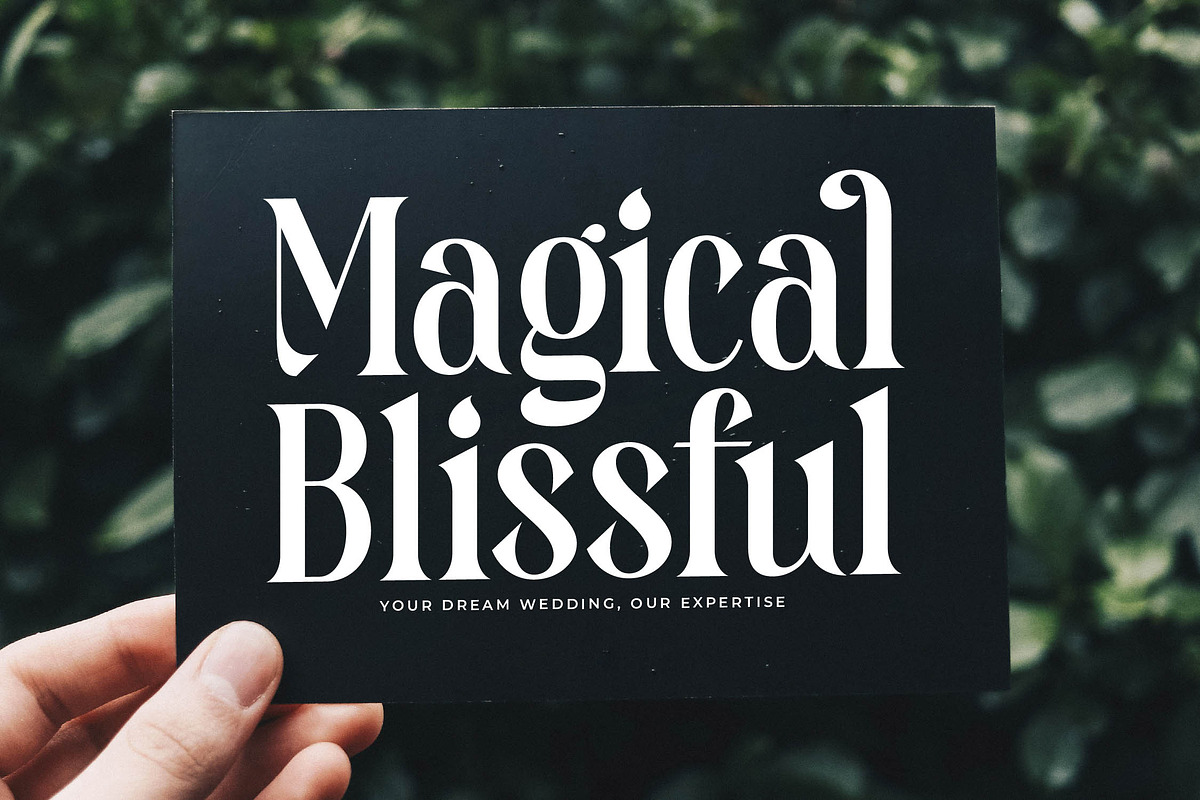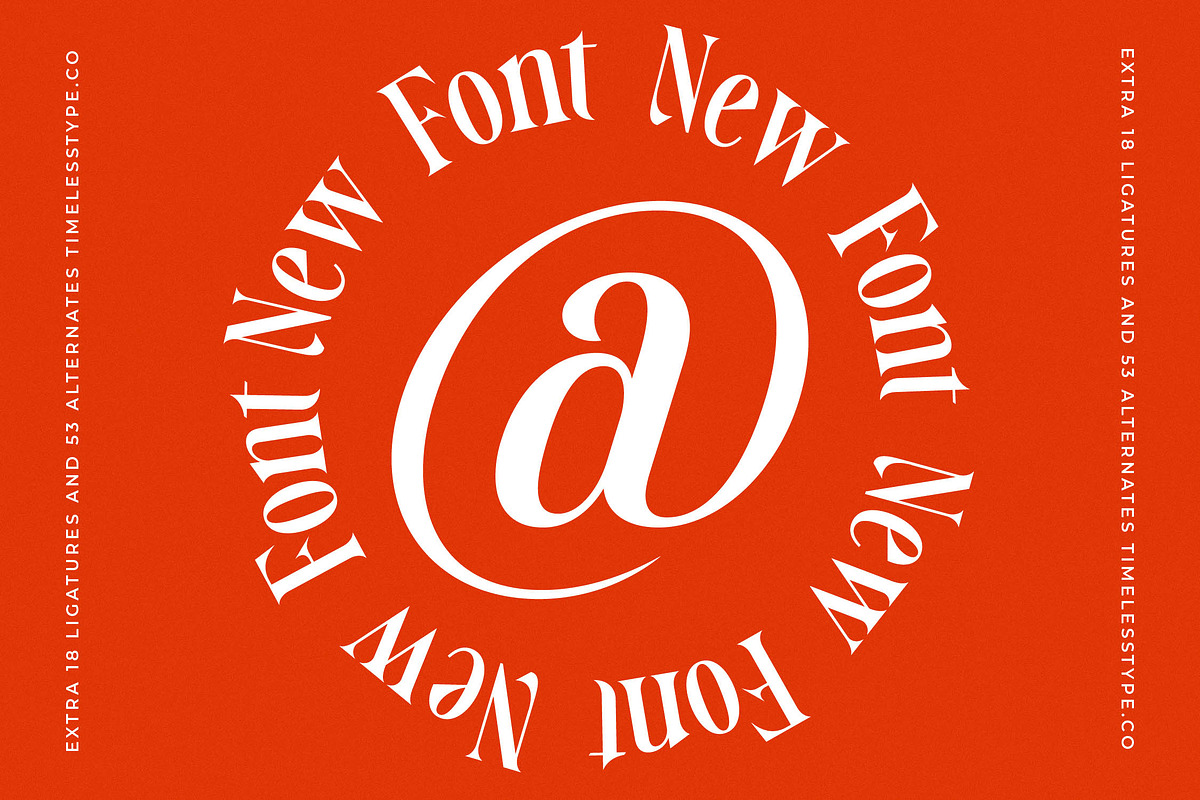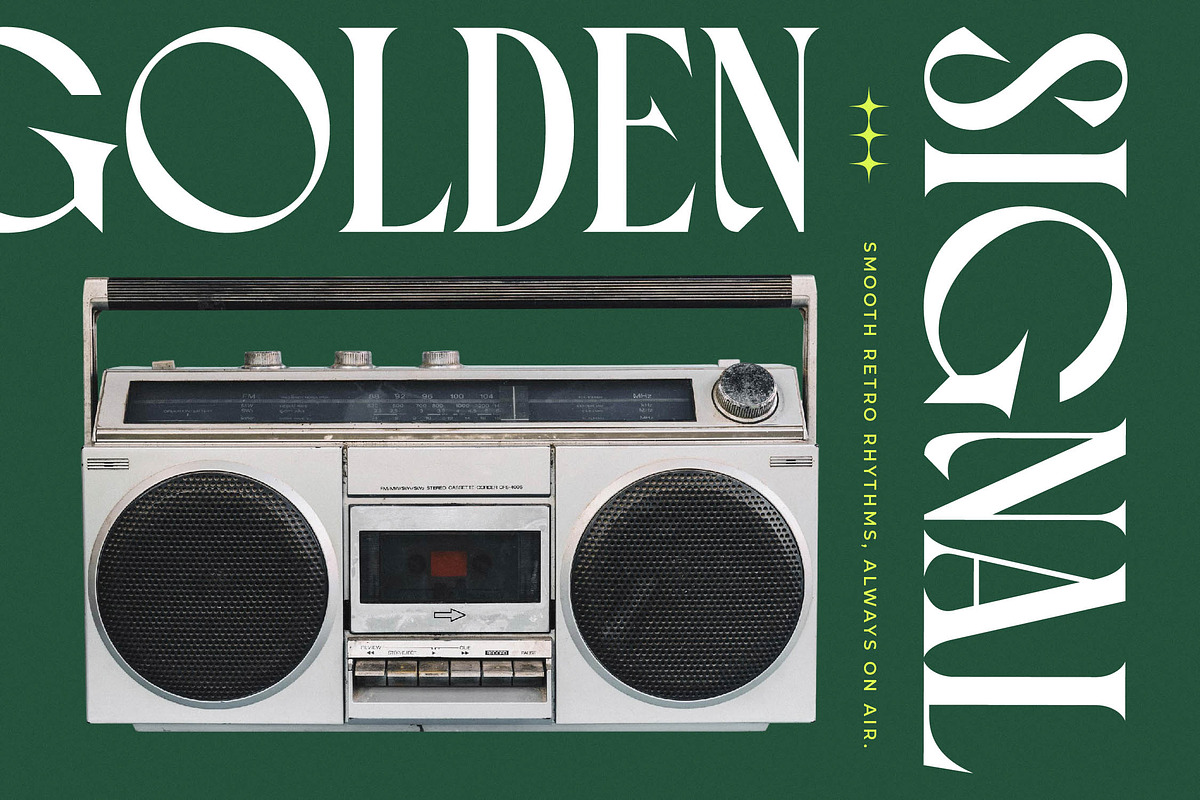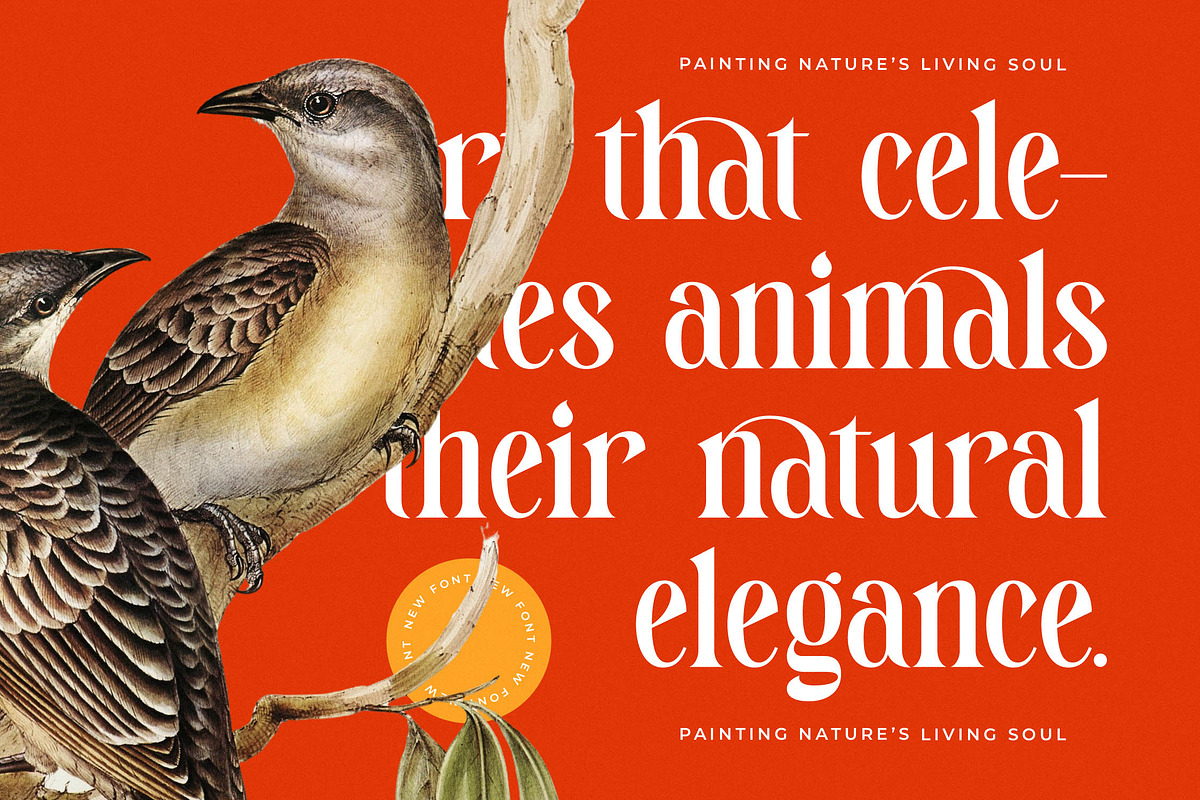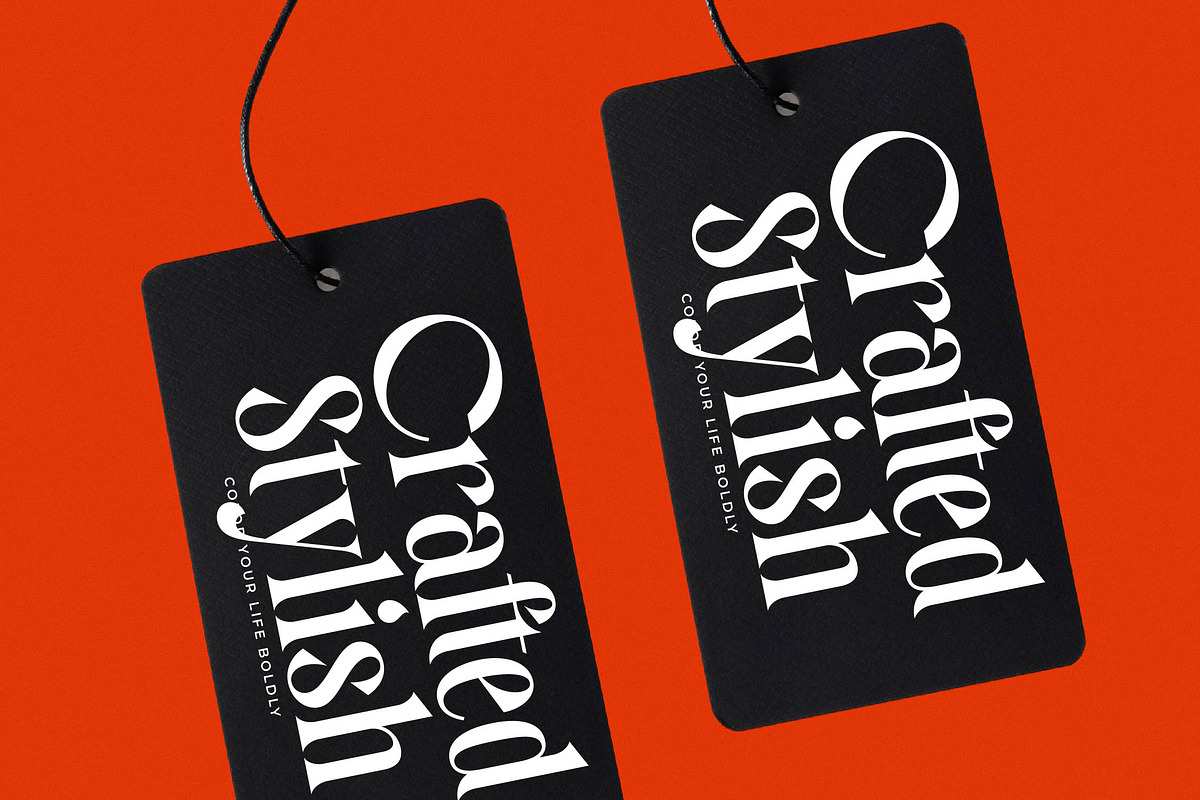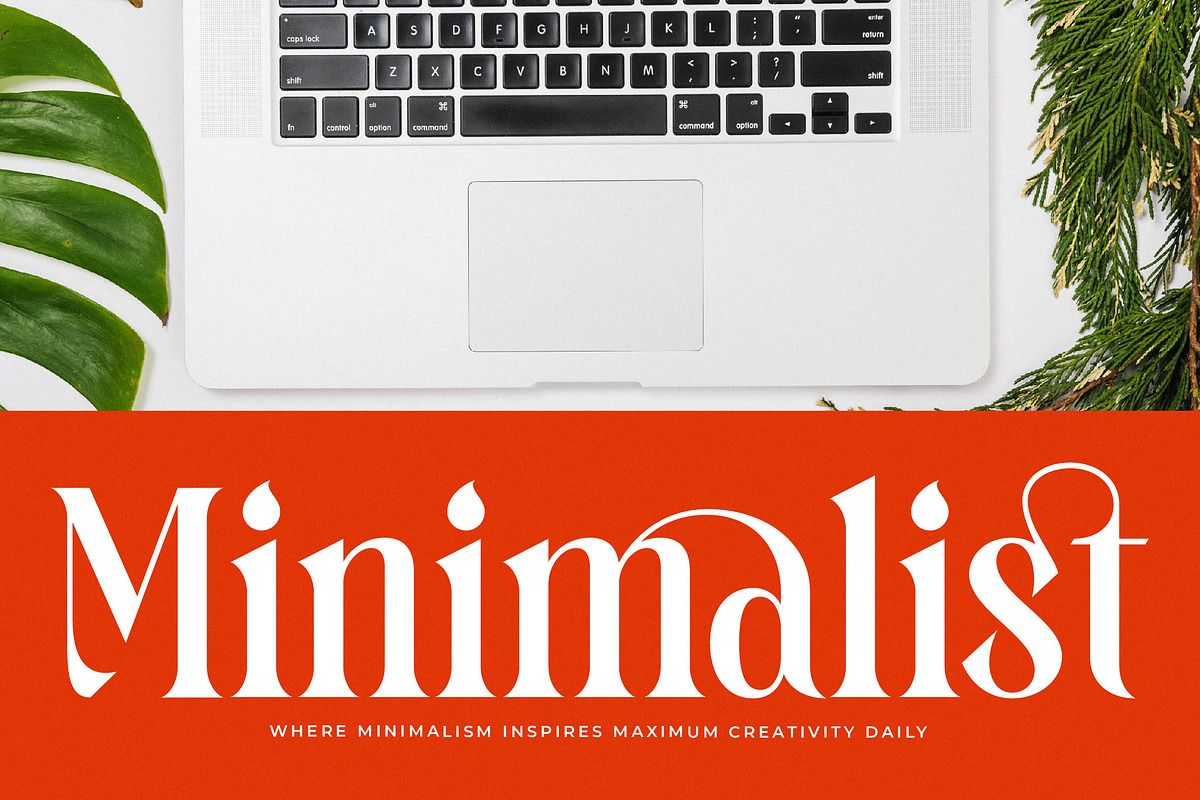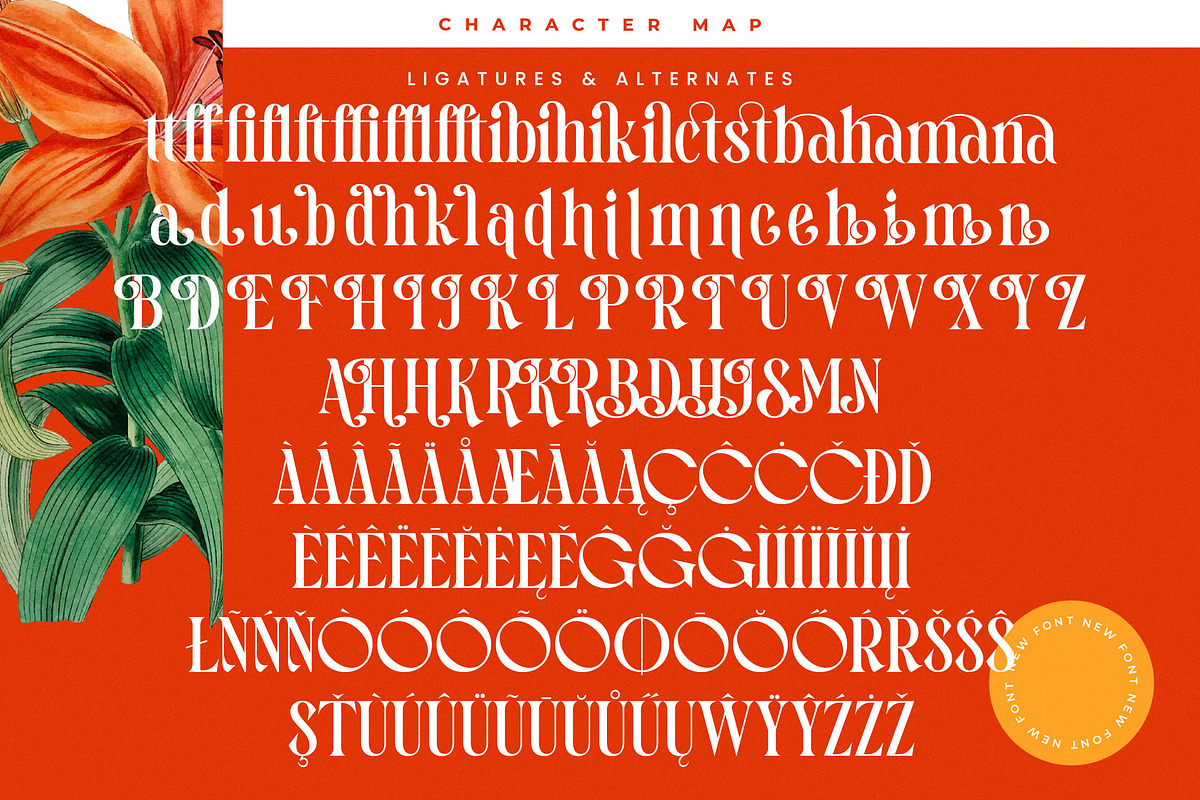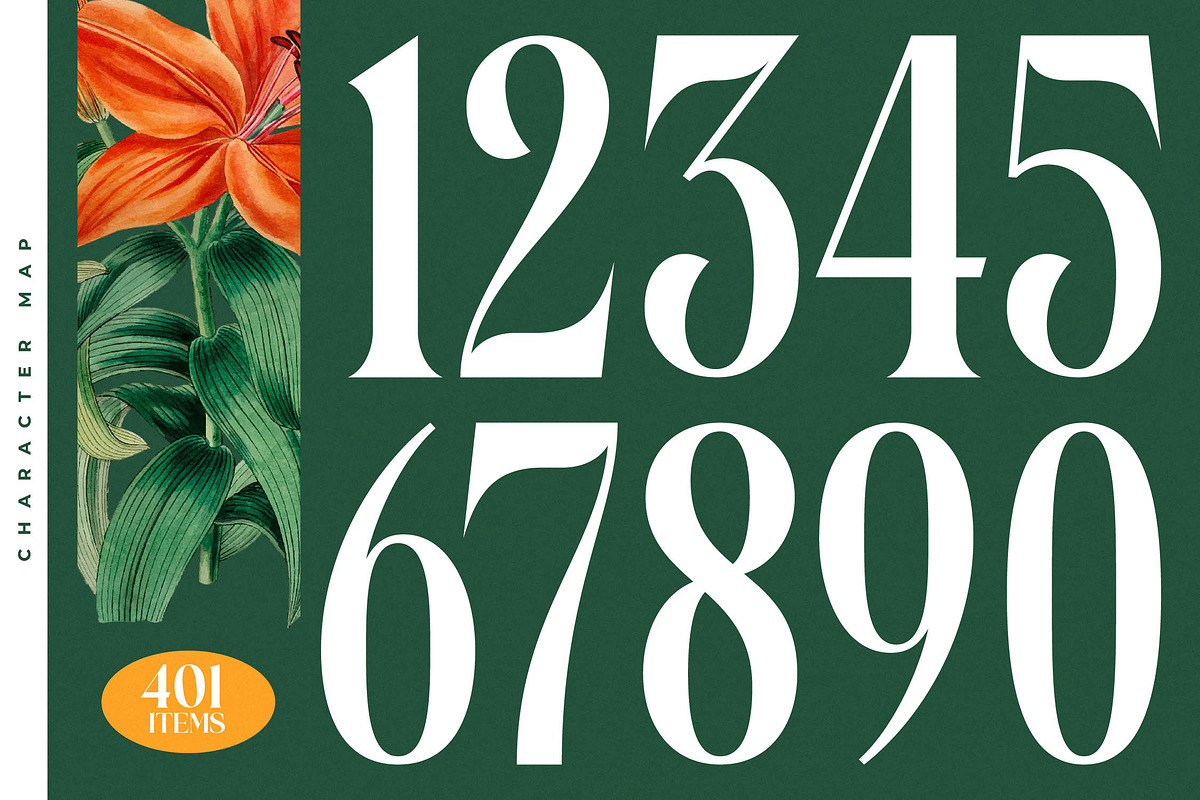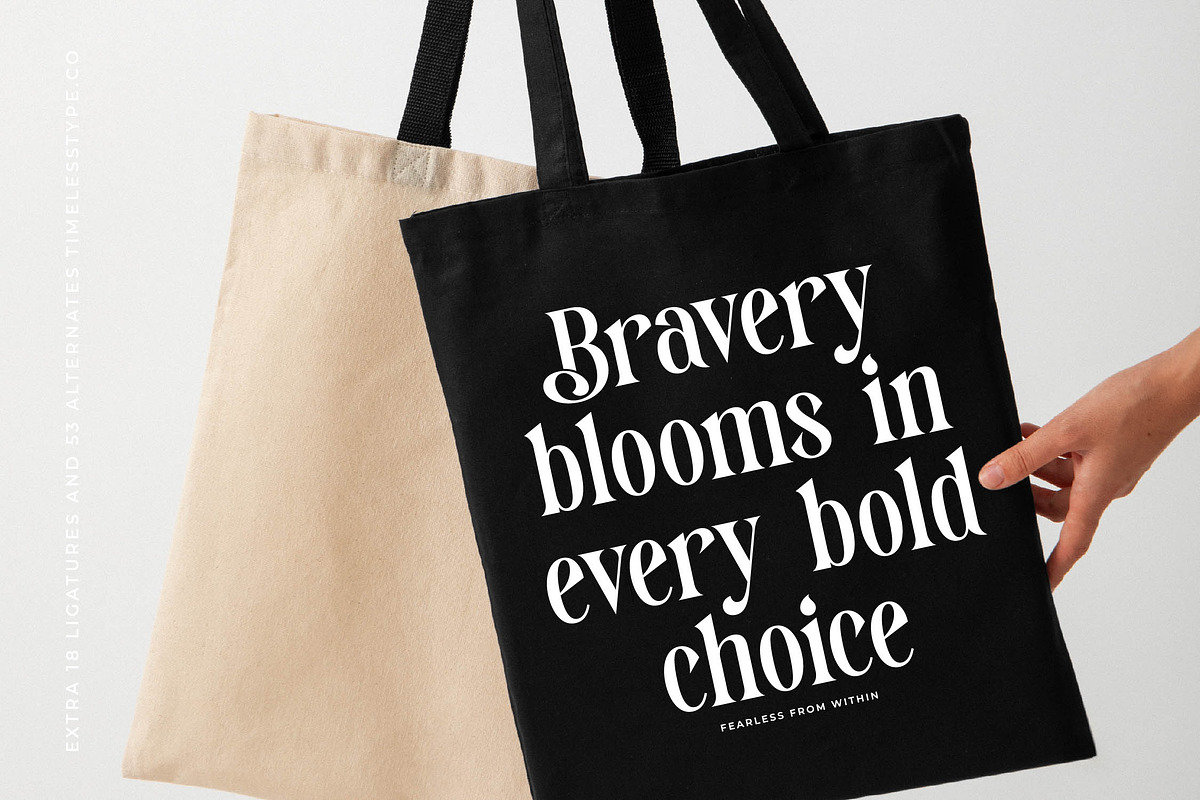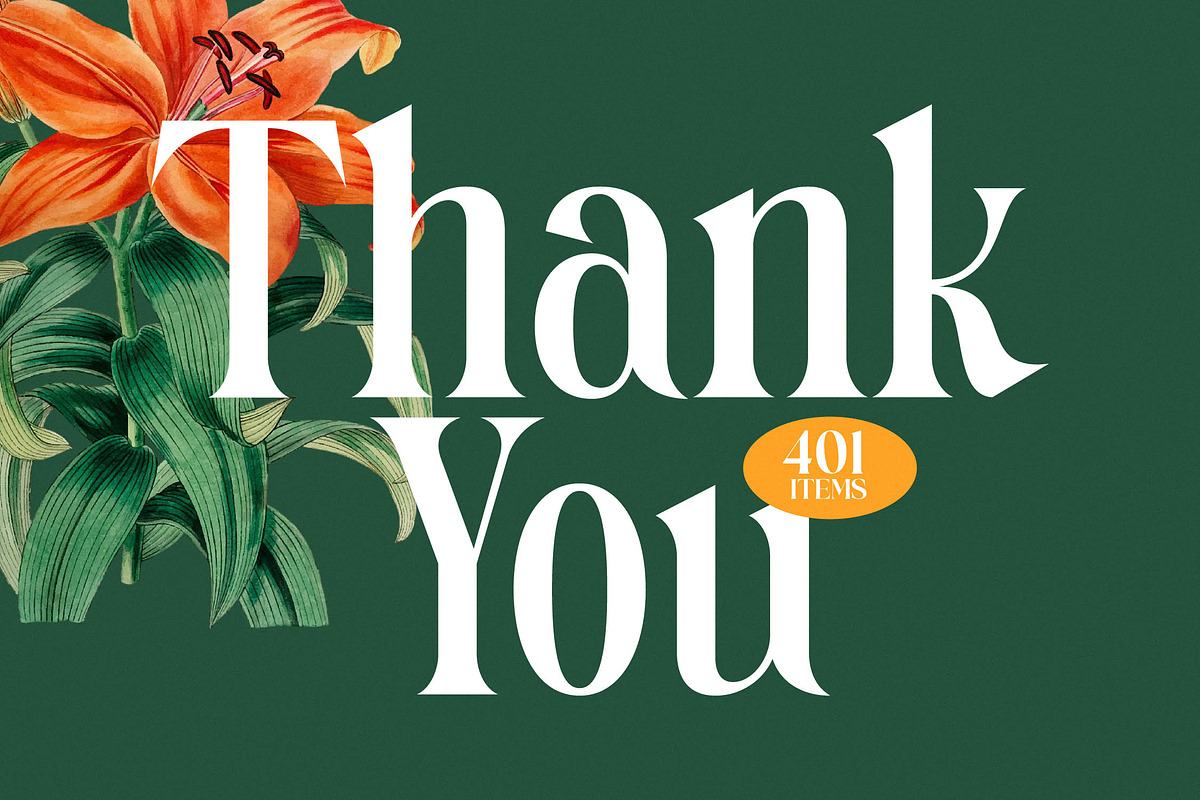
Magitals Glowing Modern Serif
Experience the mesmerizing elegance of Magitals Glowing, a typeface designed to infuse your creative projects with a sense of timeless sophistication. This font captures the essence of refined beauty, making every character a piece of art that speaks directly to the soul of your audience.
Drawing inspiration from the lush, organic curves of botanical illustrations and the sharp precision of classical typography, this font balances nature and structure. The visual narrative is one of secret gardens and high-end atelier sketches, where every stroke feels intentional, evocative, and deeply rooted in heritage.
As a modern serif display, this typeface commands attention through its high-contrast serif design and fluid movement. It is the quintessential editorial font for those seeking a massive branding impact, offering a level of luxury typography that elevates any layout from standard to world-class status instantly.
Perfectly aligned with the current modern serif trend, this typeface meets the demand for character-driven typography in a digital-first world. Designers looking for editorial display fonts will find its unique silhouettes and stylistic flair indispensable for staying ahead of contemporary aesthetic shifts and market demands.
Whether you are crafting a high-end logo design or developing a cohesive branding identity, this font delivers versatility and grace. It shines in editorial spreads, premium packaging, bespoke wedding invitations, and the fast-paced, visual-heavy world of fashion marketing and digital storytelling.
The comprehensive toolkit includes over 400 items, featuring an extensive collection of ligatures and alternates that allow for custom typographic flourishes. Full multilingual support and a wide range of international characters ensure your message resonates across borders while decorative swashes add that final touch of bespoke craftsmanship.
- Ligature 018 Alternate 053